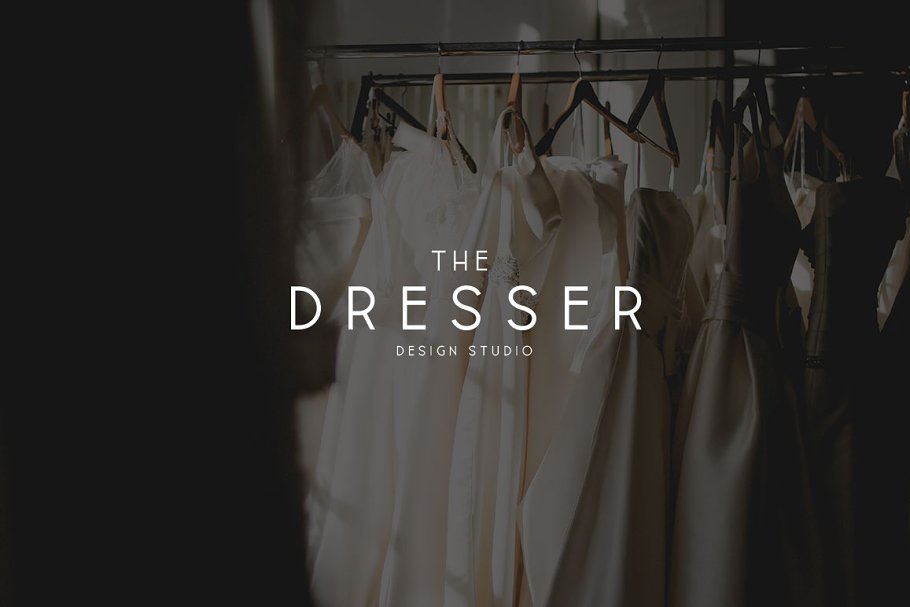
Introducing Leaner Font - the ultimate sans-serif typeface for modern designs. Created by Ilyas Yunusov, this typeface is perfect for anyone looking to add a touch of sophistication to their projects. With three weights to choose from, Thin, Regular, and Bold, and a set of italics for each weight, Leaner is incredibly versatile.
One of the best things about Leaner Font is its clean and universal design. It's the perfect choice for logos and headings, as it exudes confidence and style. Additionally, Leaner Font is ideal for cover letters - one of the most important documents you'll ever write. With its modern and professional look, it's sure to impress any potential employer.
But that's not all. Leaner Font also boasts extended latin glyphs, allowing you to incorporate special characters and accents into your designs. And with OTF files included, you can rest assured that your designs will look their best across all devices.